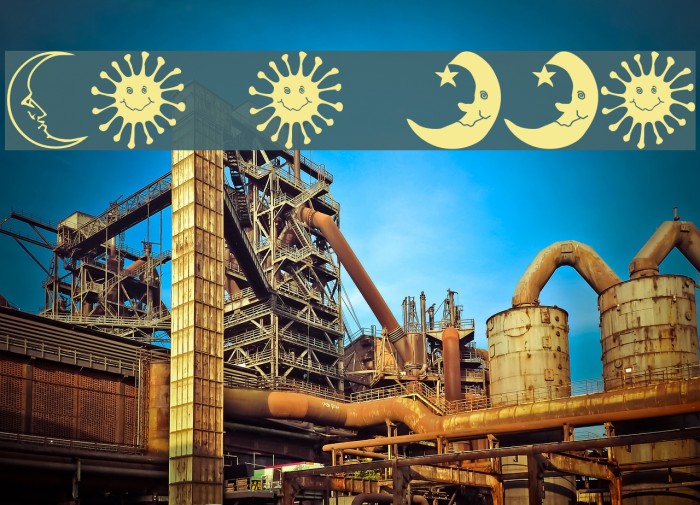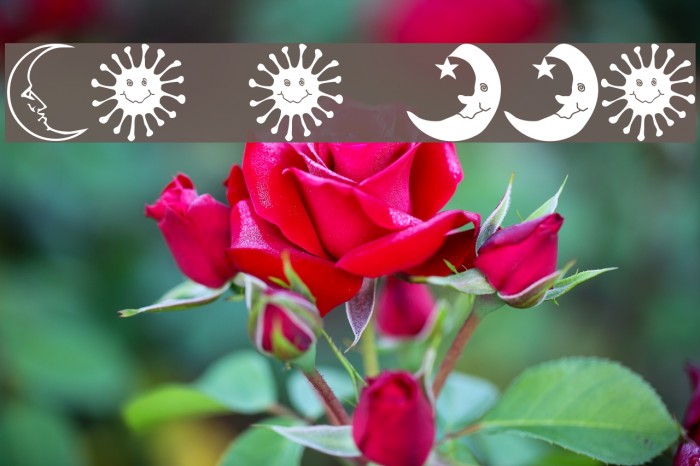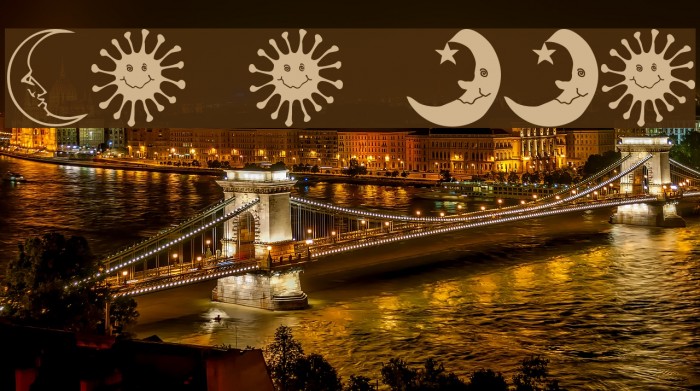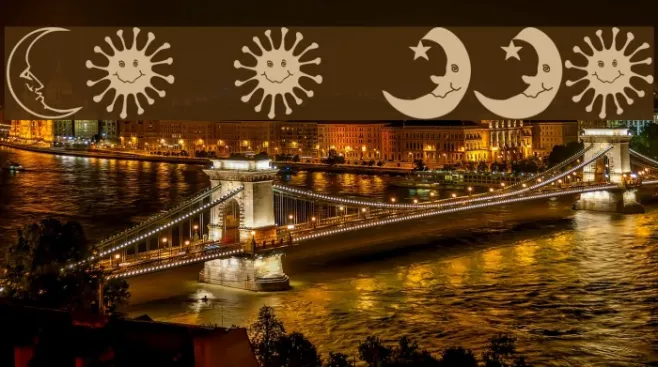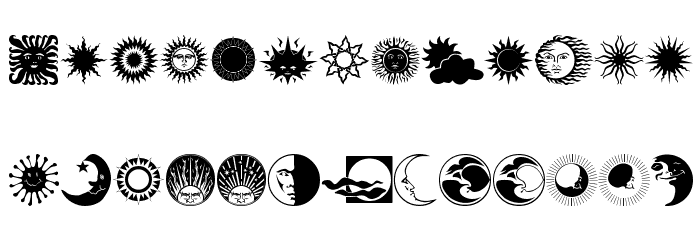
Sun n Moon Font
Sun n Moon Description
A decorative dingbat font featuring a variety of sun, moon, and celestial-themed icons, including stylized suns, crescent moons, faces, clouds, and cosmic motifs. Each glyph is a unique illustration rather than a standard alphanumeric character.
| Overall Style | Decorative, Mystical, Celestial |
| Use Case | Icons, Logos, Decorative elements |
| Proposed Projects | Astrology websites, mystical branding, tarot cards, posters, invitations, decorative dividers, and themed event materials. |